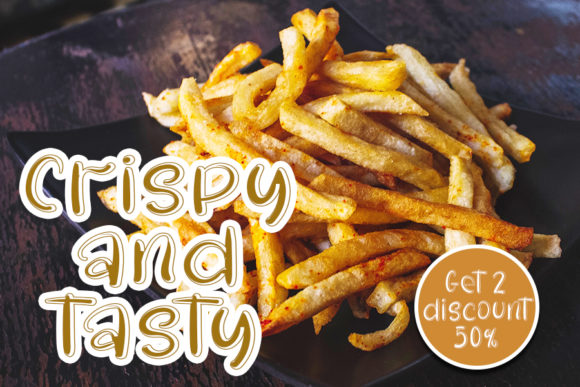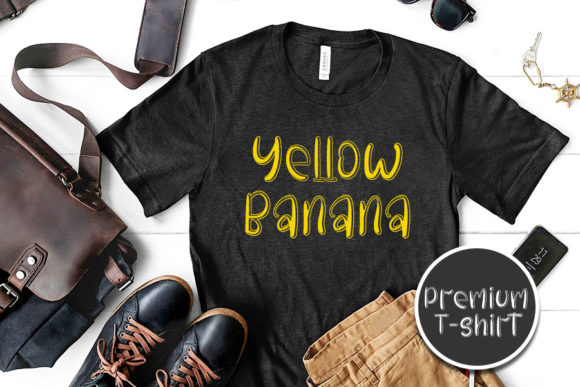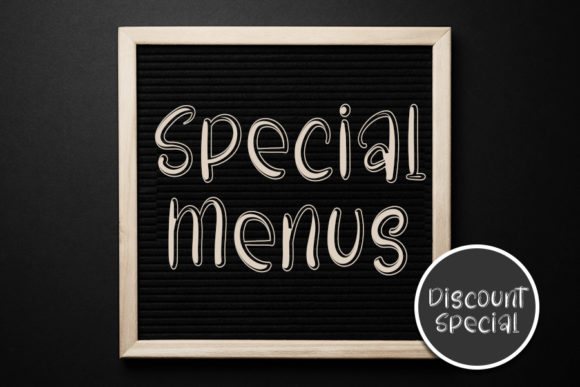
Introduction to Snack Potato Font Font
Fonts play a crucial role in design, and the Snack Potato Font font is a typeface that brings both character and versatility to any project. Whether you’re working on a branding project, a website, or a print design, the Snack Potato Font font offers a unique style that can elevate your work.
Snack Potato is a simple and sweet handwritten font.
It is suitable for creating any branding, product packaging, invitation, quote, t-shirt, label, poster, logo that you wish to develop .
Key Features of Snack Potato Font Font
Why Choose Snack Potato Font Font?
The Snack Potato Font font is more than just a typeface – it’s a design tool that helps you communicate your message with style and clarity. Its unique character set and versatile design make it suitable for a wide range of applications, from elegant invitations to bold headlines.
With its carefully crafted letterforms and balanced proportions, the Snack Potato Font font ensures readability and visual appeal across all mediums.
What makes Snack Potato Font font special?
The Snack Potato Font font stands out with its unique design, exceptional readability, and versatility across various design applications.